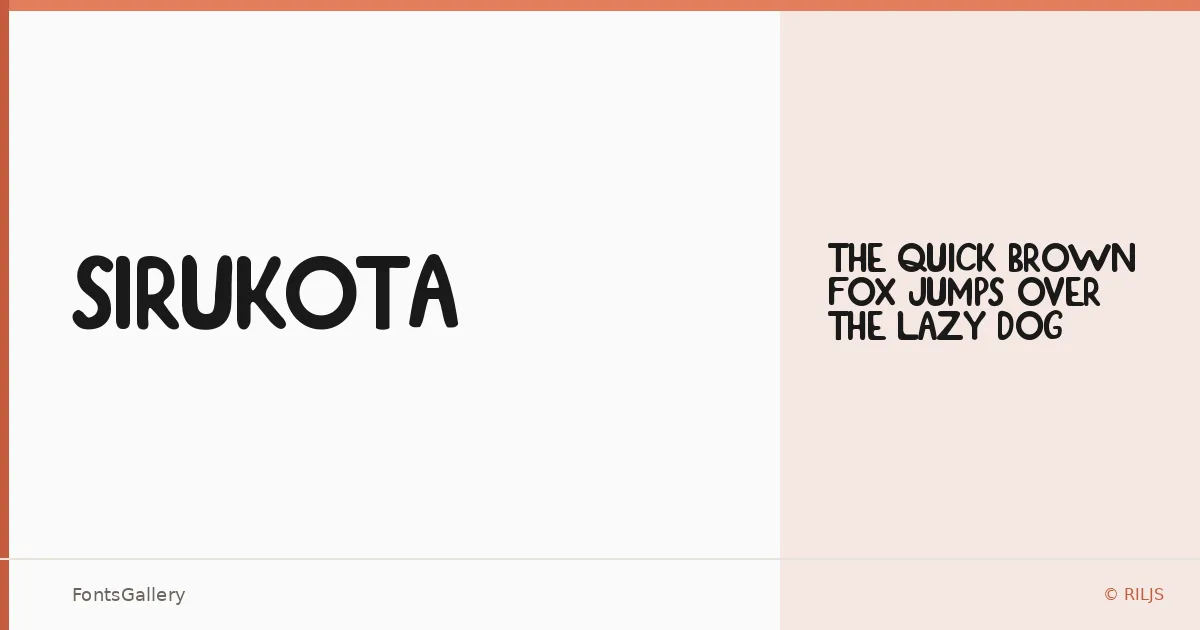
About Sirukota Font
There is a deliberate confidence to these letterforms — the kind that comes from reduction rather than addition. Sirukota is a display typeface designed by Ril Anwar under the RILJS foundry, released as a single Regular weight built for moments when a headline needs to own its space without excess.
The design sits at the intersection of bold and minimal: strokes are assured, details are stripped back, and the overall texture reads as clean and modern without feeling cold. That professional restraint is exactly what makes the Regular cut work so hard at large sizes — in a magazine spread or on a poster, it holds its structure rather than dissolving into decoration. The TTF file covers the Latin script, keeping the scope focused and the rendering consistent.
This is a face for branding systems, logo lockups, editorial headlines, and poster work where a strong typographic voice does most of the heavy lifting. It pairs naturally with the neutral geometry of Helvetica or Aileron for body copy, and sits well alongside the editorial warmth of Canela or ABC Arizona when contrast between display and text is the goal. Abrade offers another direction — a more textural counterpart for layouts that want friction between the two levels of the hierarchy.